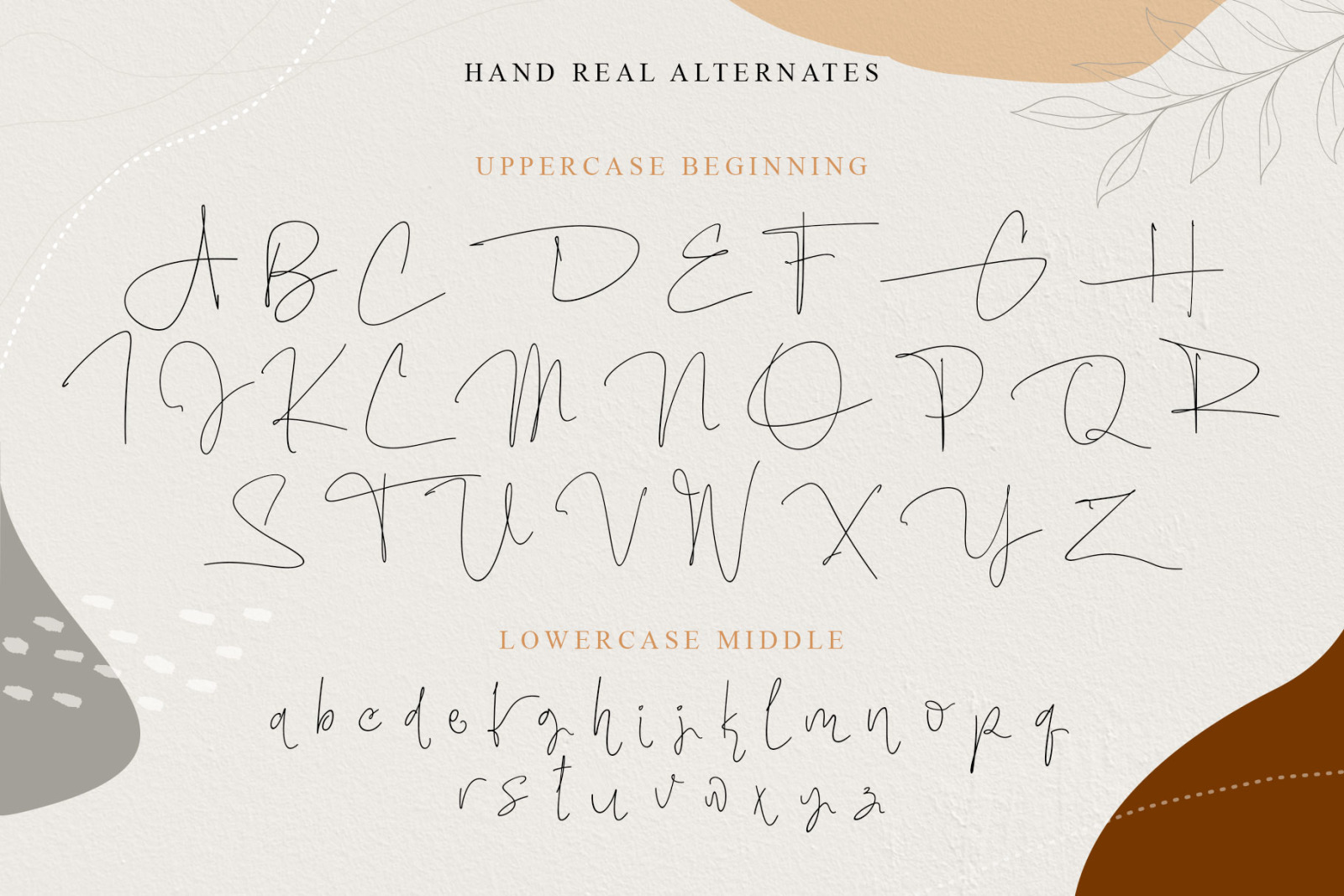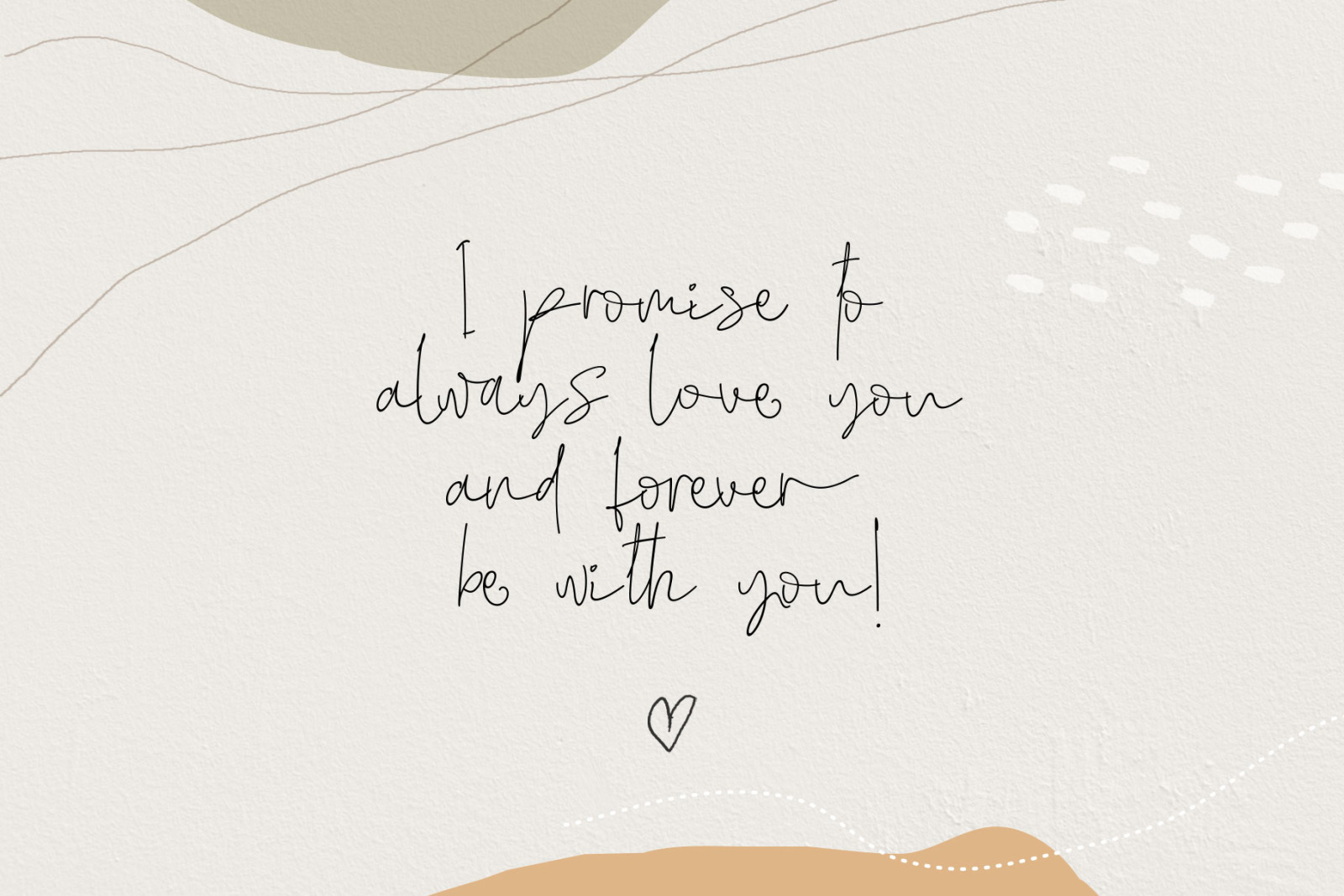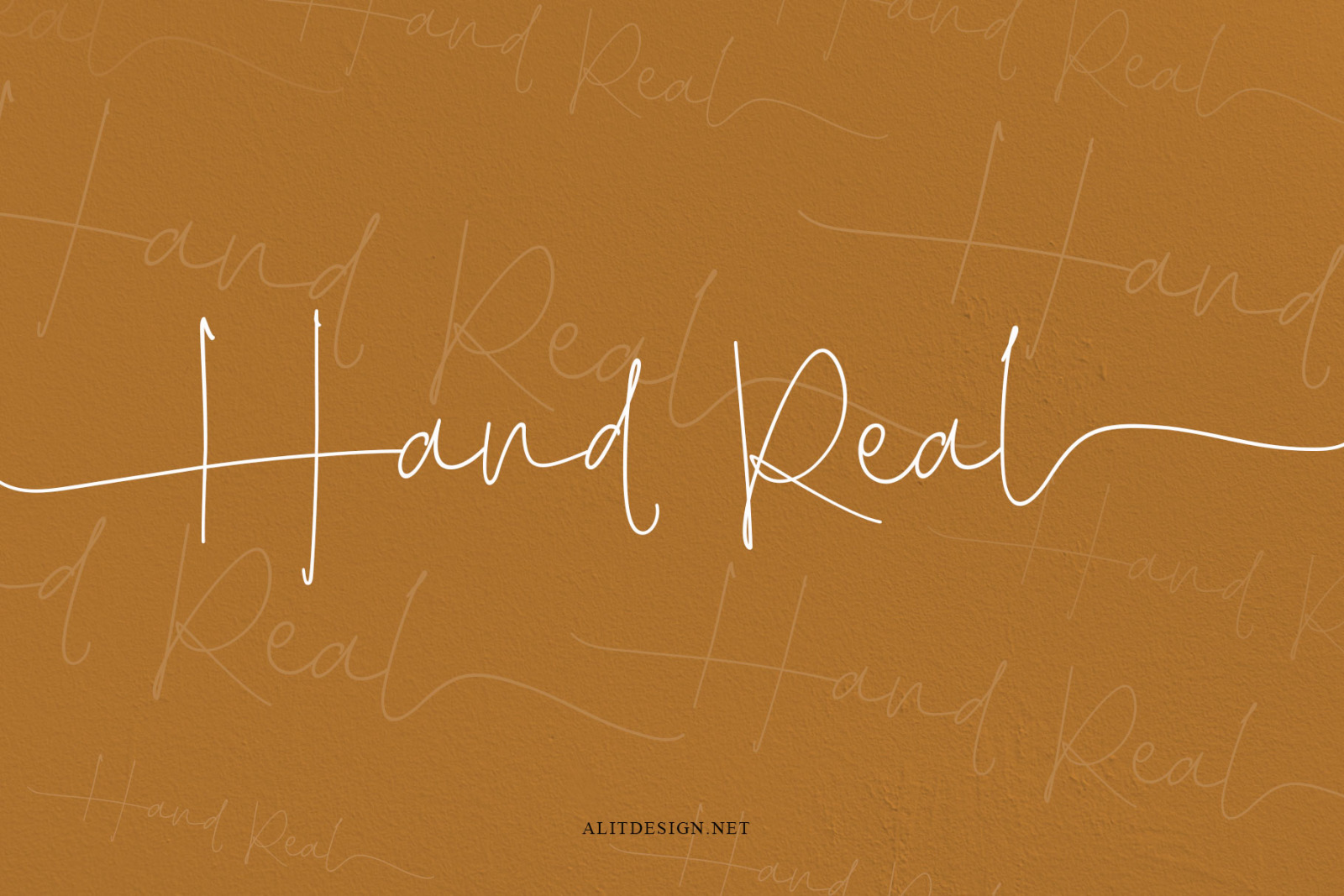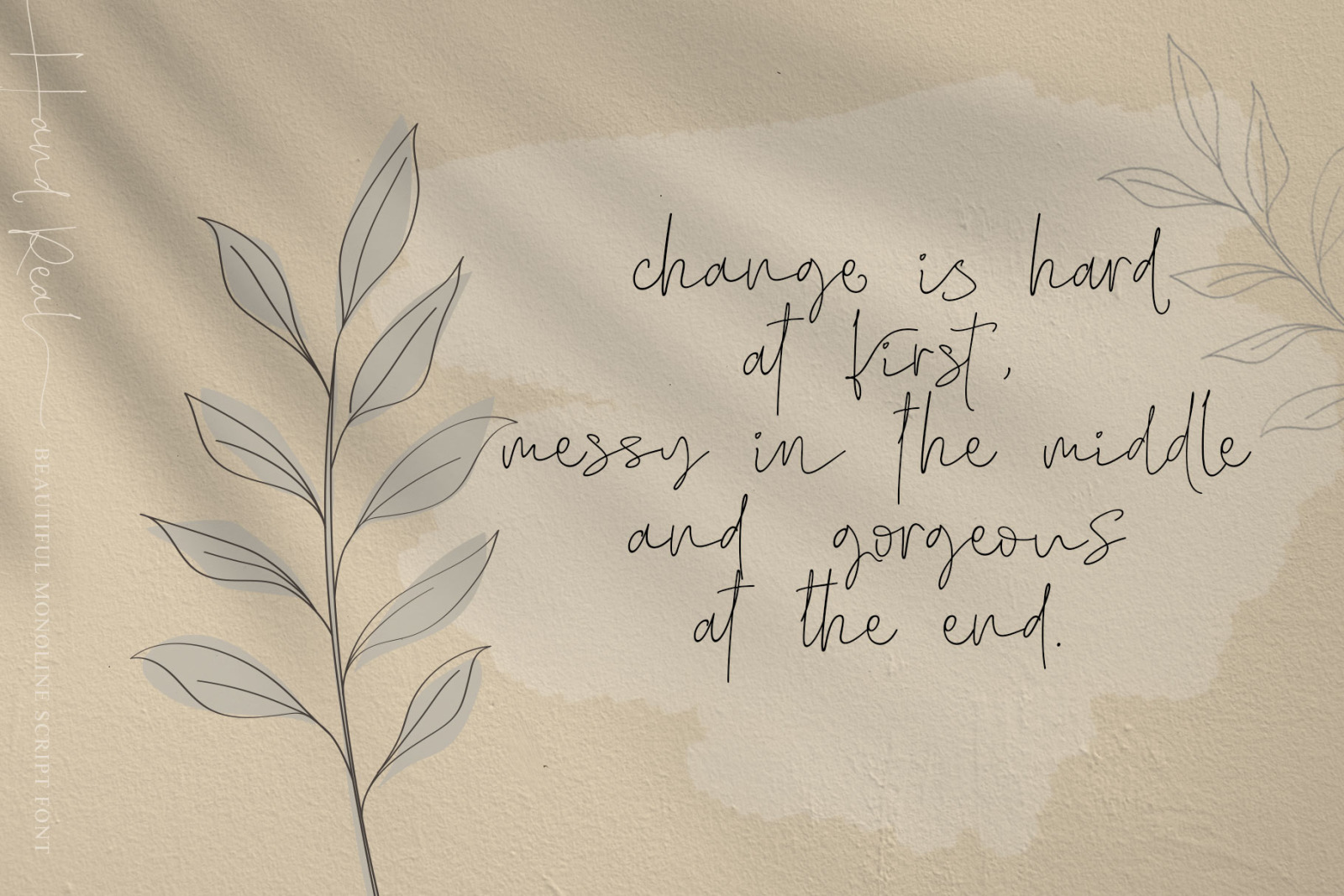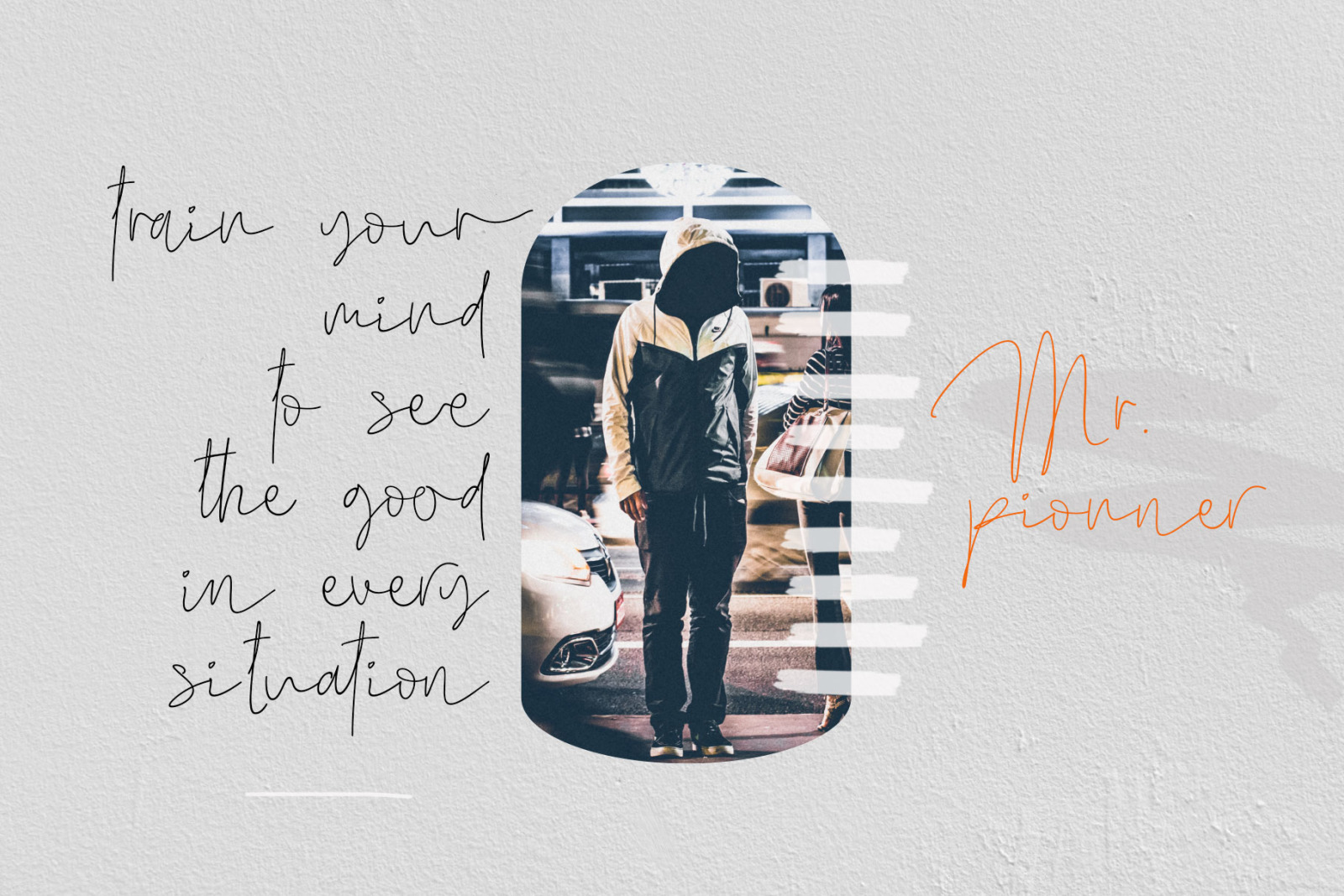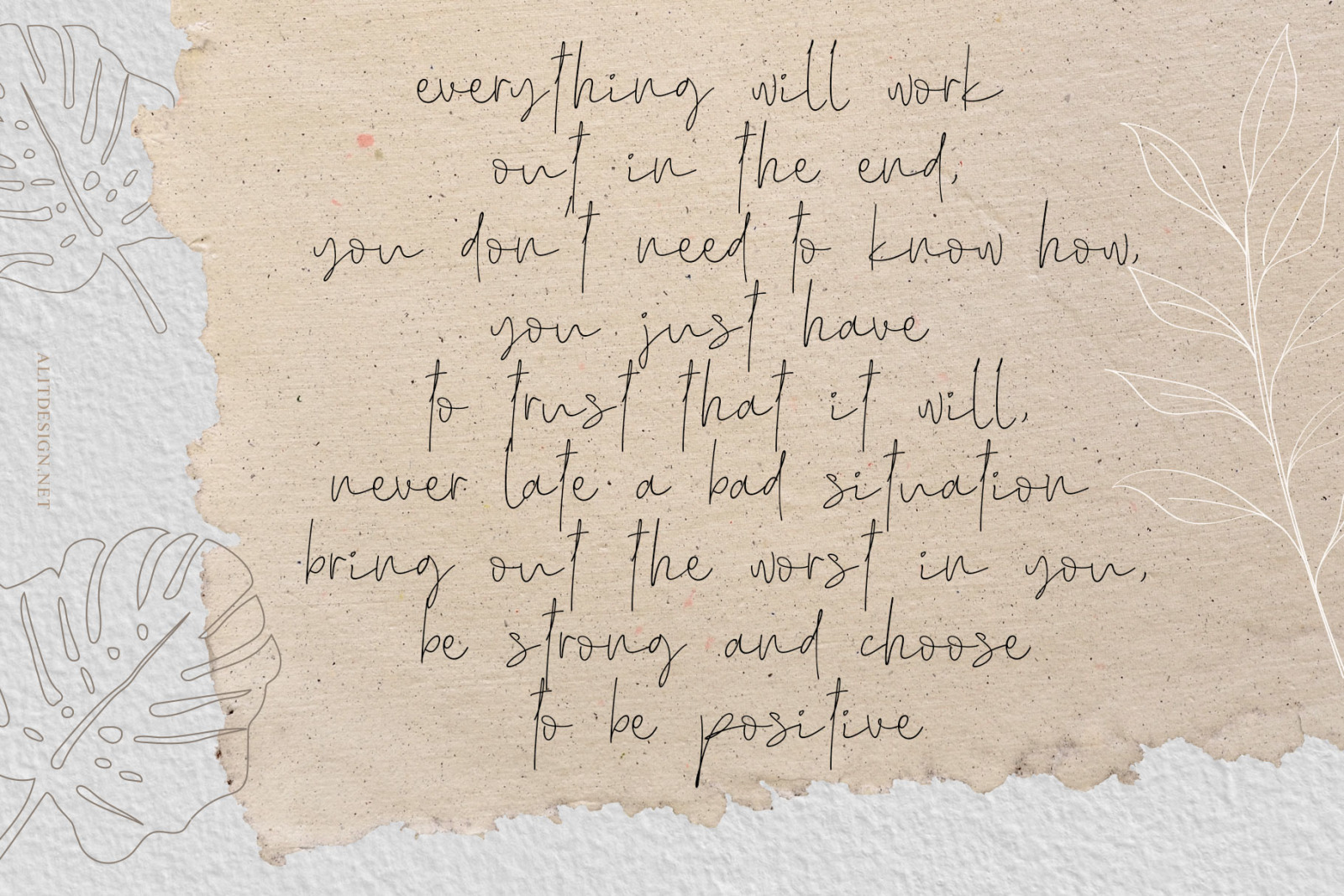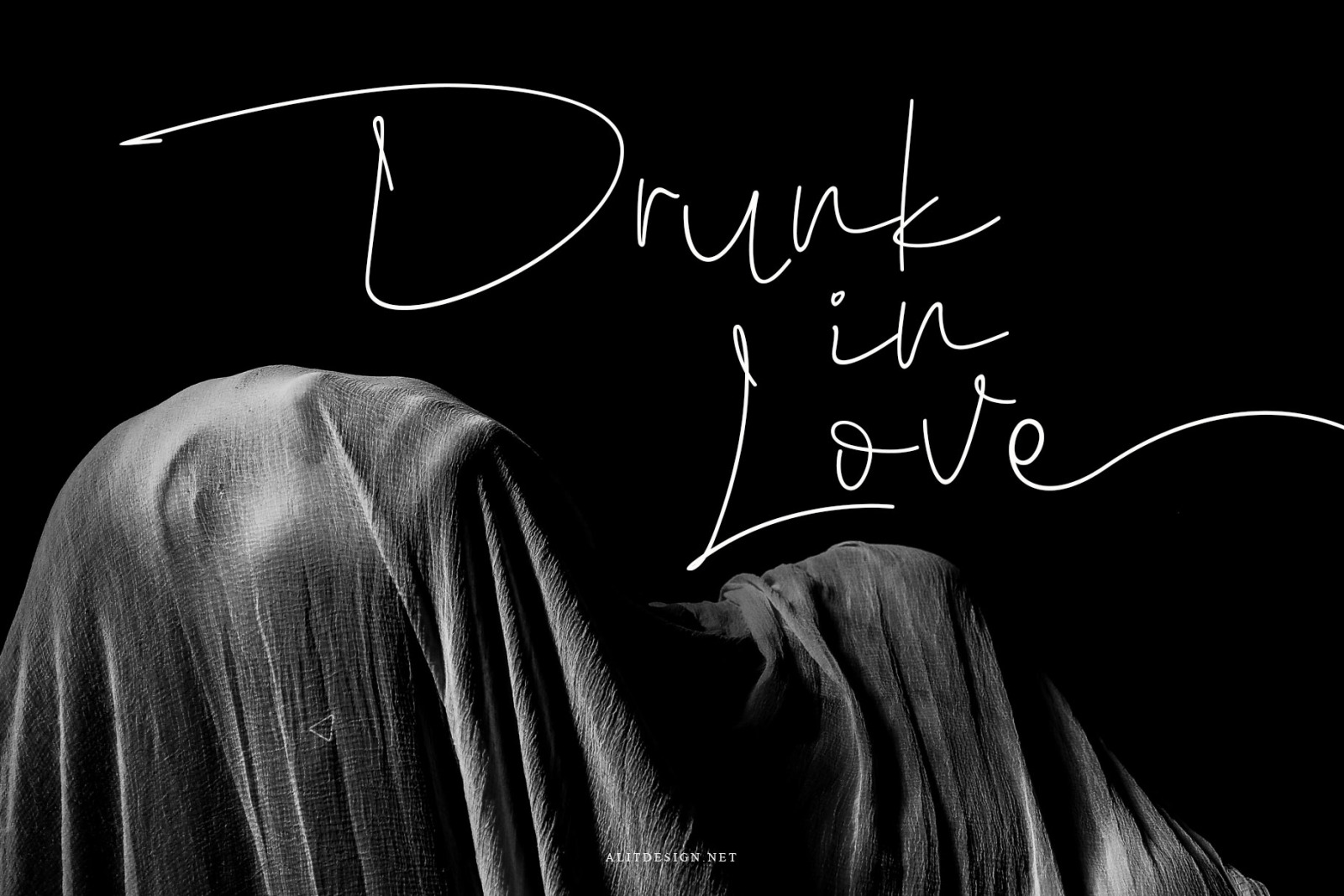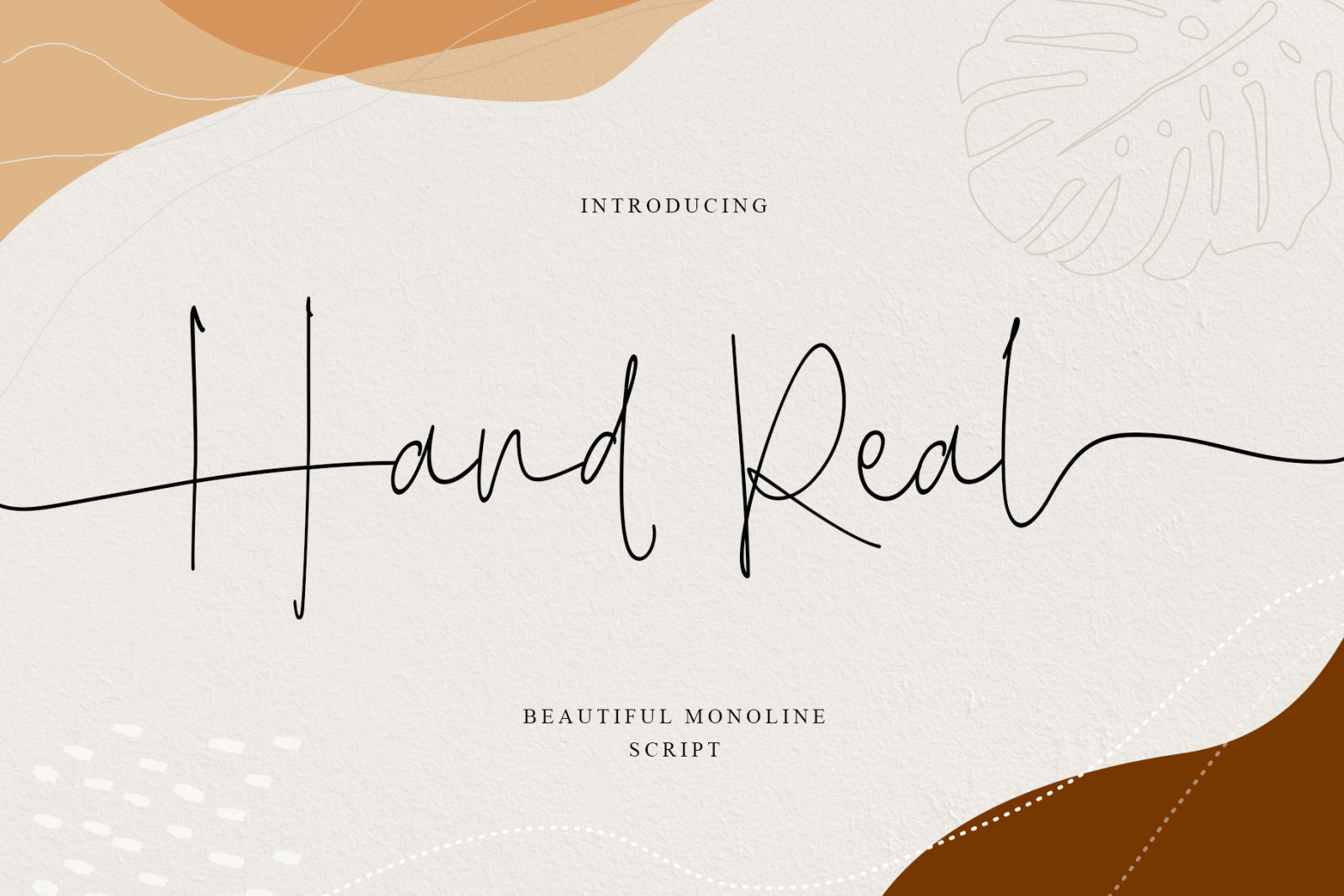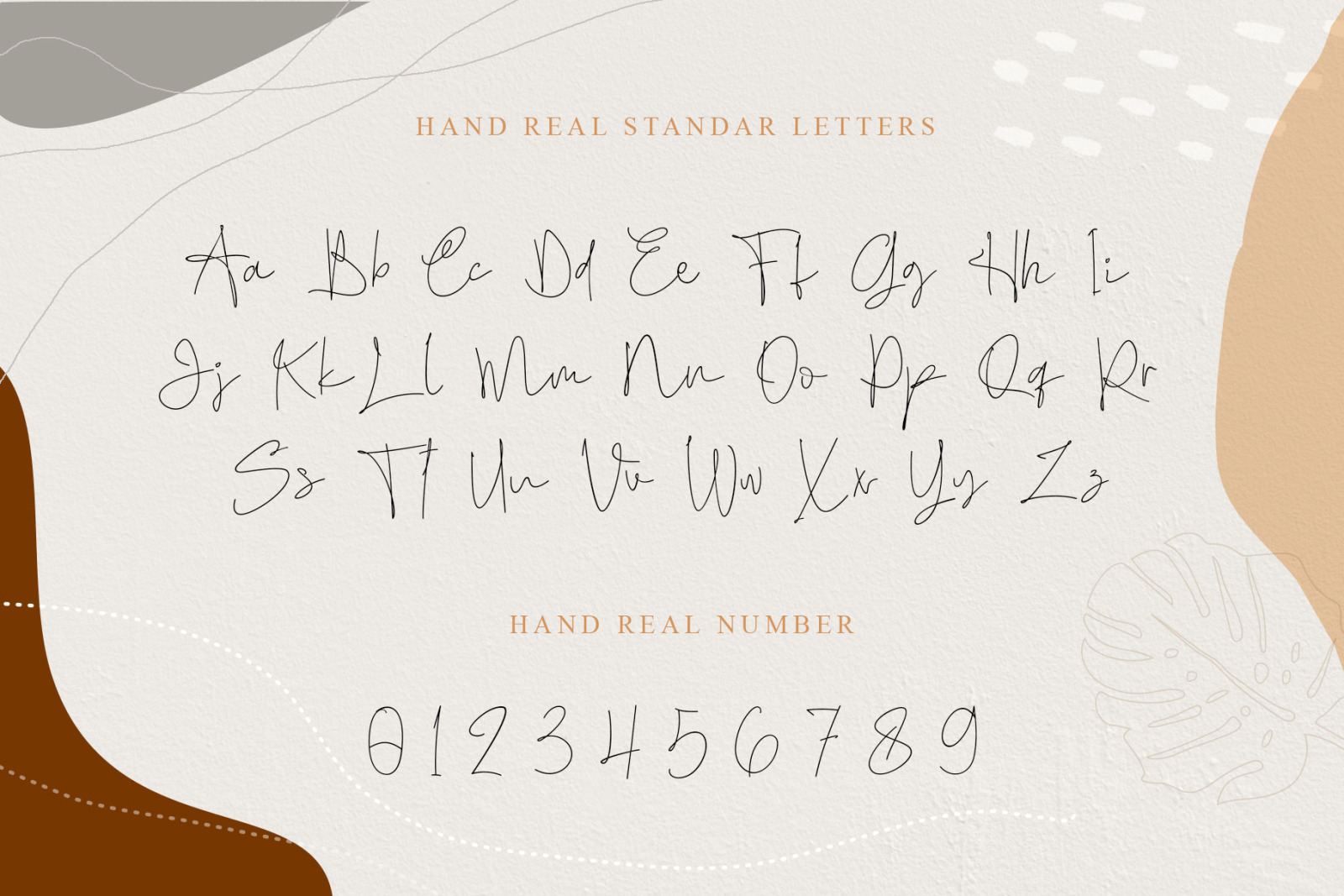
Hand Real Font
Hand Real This font is inspired by the signature that makes writing cool and unique. The limp and natural monoline script style is perfect for a young, bold and cool design. Hand Real font is perfect for designs with a girly, love and relaxed concept.
Very well applied to wedding invitation card designs, logotypes, business card designs and so on.